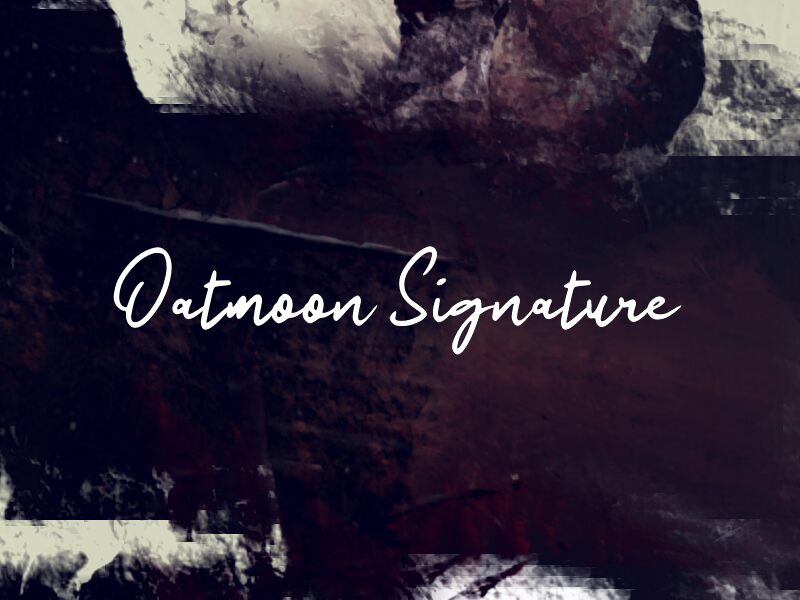
Oatmoon Signature font, by wep, is a free handwriting font created to give any of your design projects more character. The script font mimics the natural flow of actual pen writing and is sure to stand out in any project you have in mind, be it a personal project like a wedding invitation, or by using a commercial font license, a business card, or a product package.
Some other examples of usage include advertisements and other forms of marketing, magazines (covers and pages), electronic and print media projects, product packaging, and even photography.
Oatmoon Signature is an elegant and stylish free font that captures the essence of modern design. This font is perfect for a wide range of creative projects, including invitations, branding, and social media graphics. Its unique and sophisticated curves allow for a personalized touch, making your designs stand out.
Explore the beauty of Oatmoon Signature and elevate your design game with this exquisite free font.